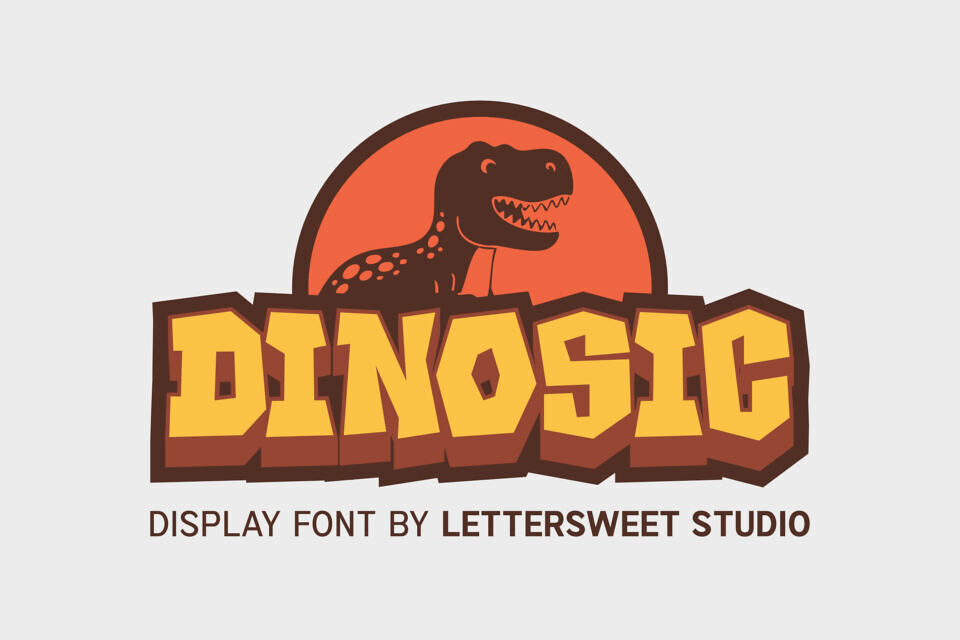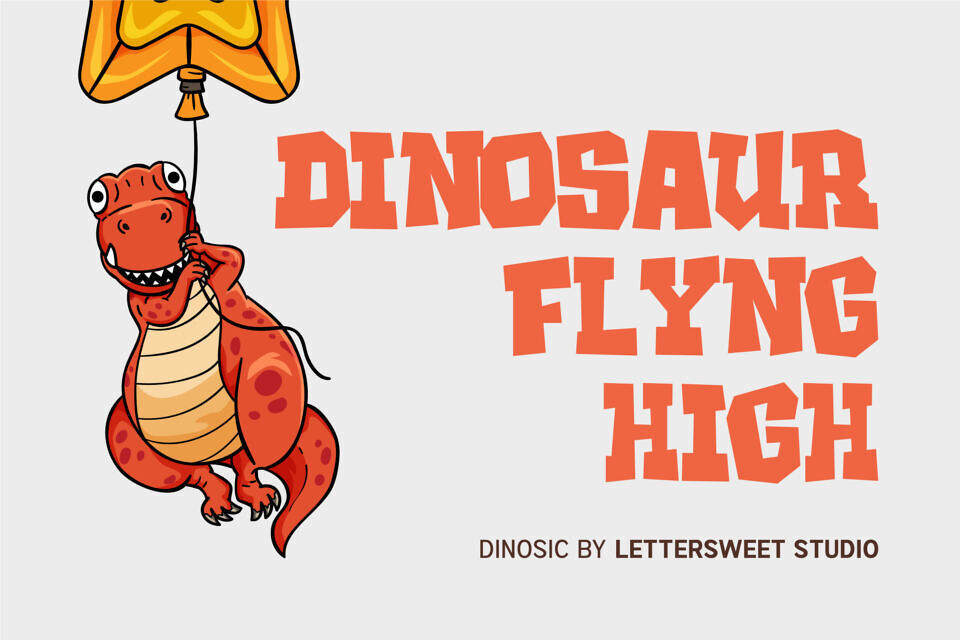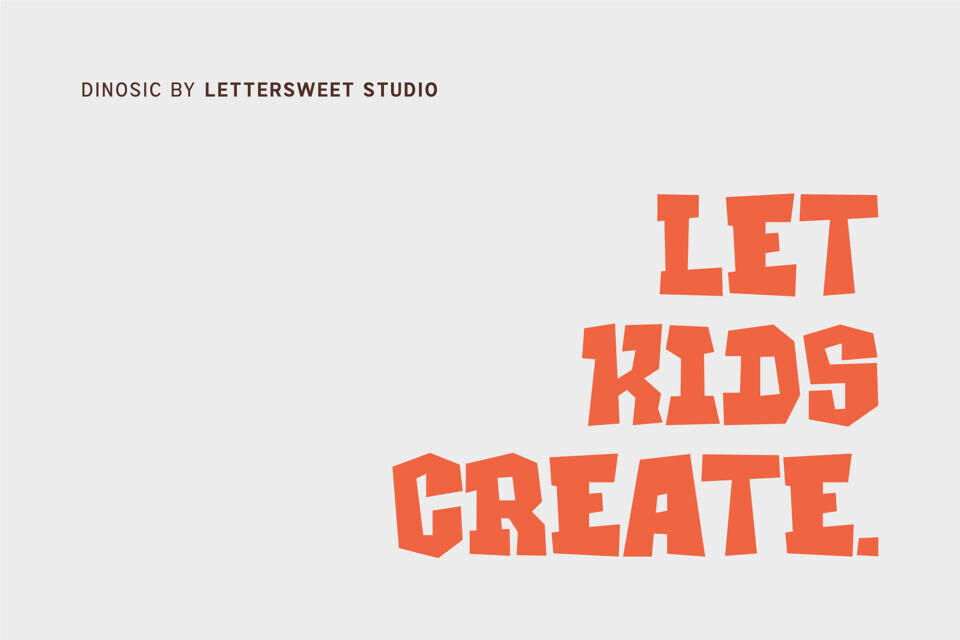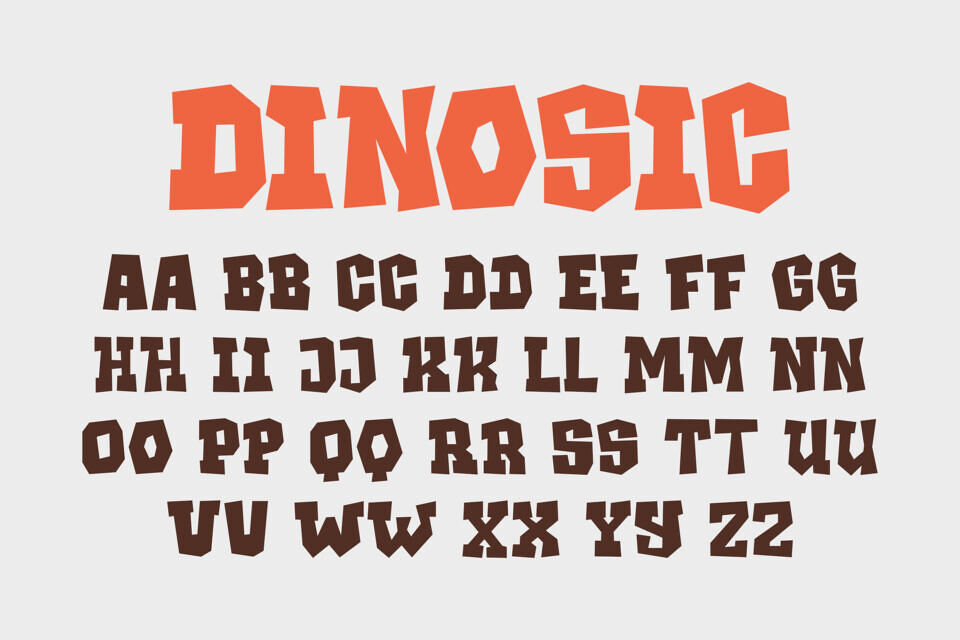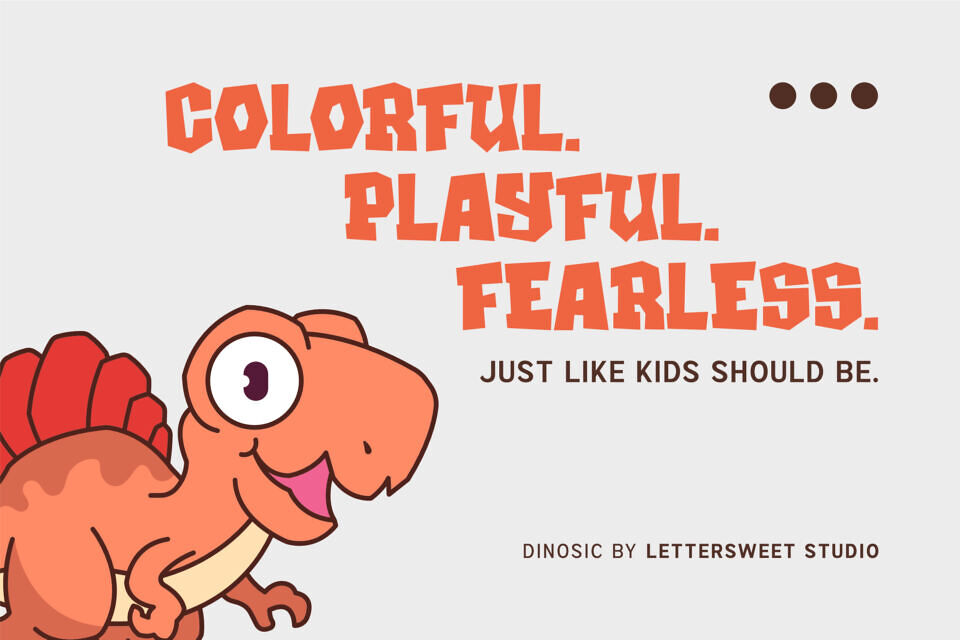
Dinosic Font
Bring your designs to life with DINOSIC, a bold and playful display font inspired by the wild energy of dinosaurs and adventure themes. With its chunky shapes, strong outlines, and fun personality, DINOSIC is built to grab attention instantly.
This font is ideal for projects that demand attention and energy. Its standout features include bold, eye-catching letters and a playful dinosaur theme, making it perfect for kids’ content, cartoons, and fun brands.